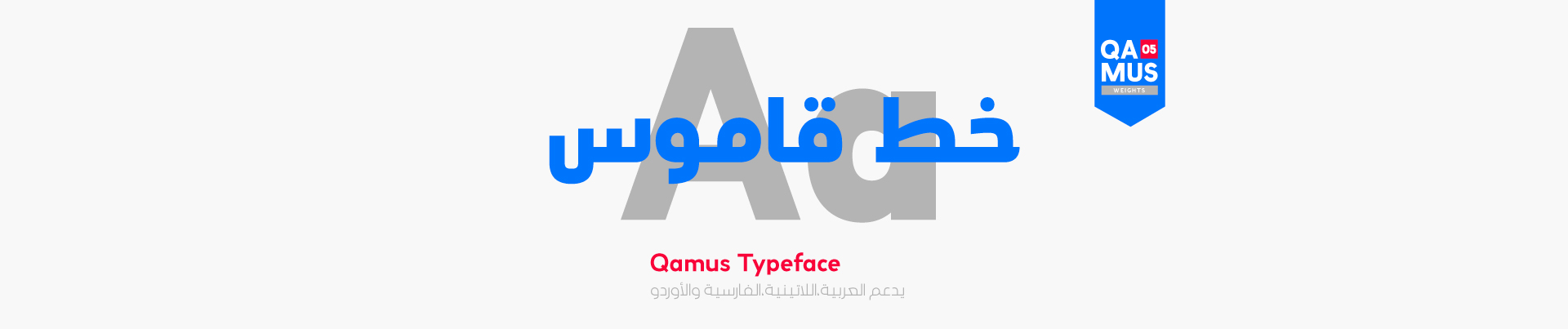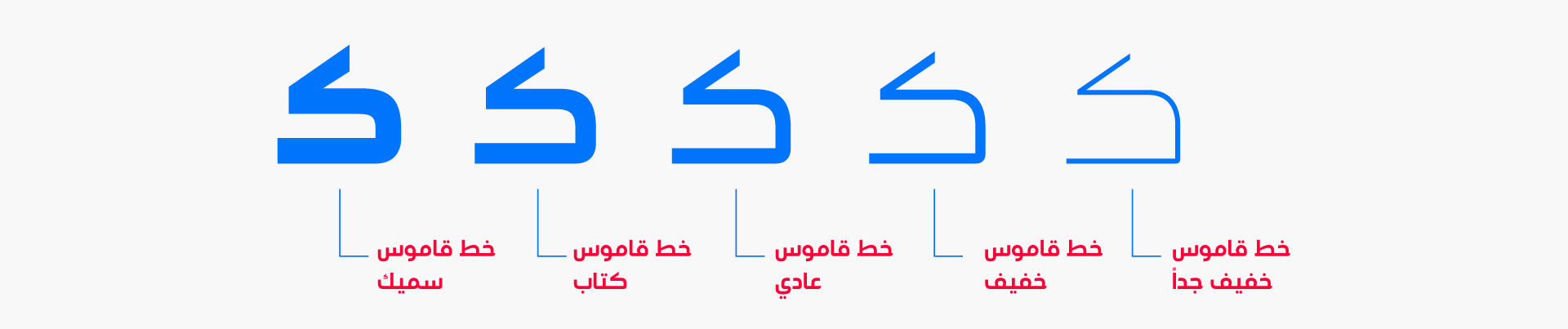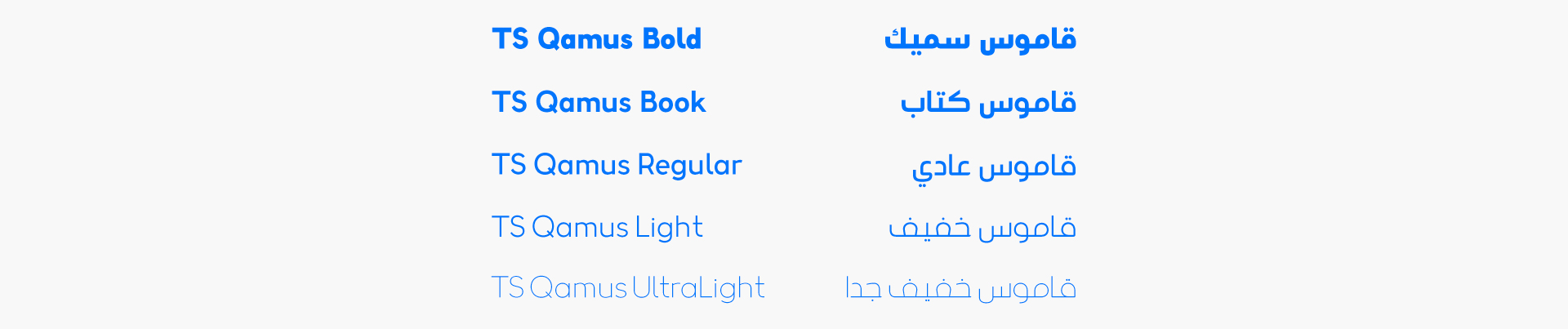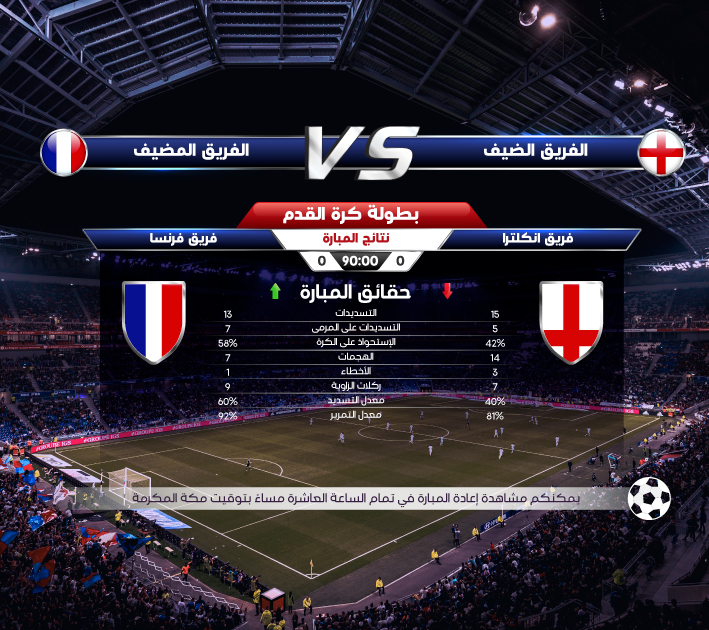
About Qamus Font
Introduction:
Qamus font, released on June 15th, 2020, is developed to meet the broader needs of our users. It is suitable for large companies, news channels, electronic newspapers, and advertising agencies. Arabic letters are inspired by the Kufic script.
Weights and Languages:
Qamus Consists of 5 weights and It supports Latin, Arabic, Persian, and Urdu.
Usage:
In headlines, texts, websites, posters, visual identities, and printing.
Designing & Developing:
TSfonts Type Foundry
Tarek Alsawwa